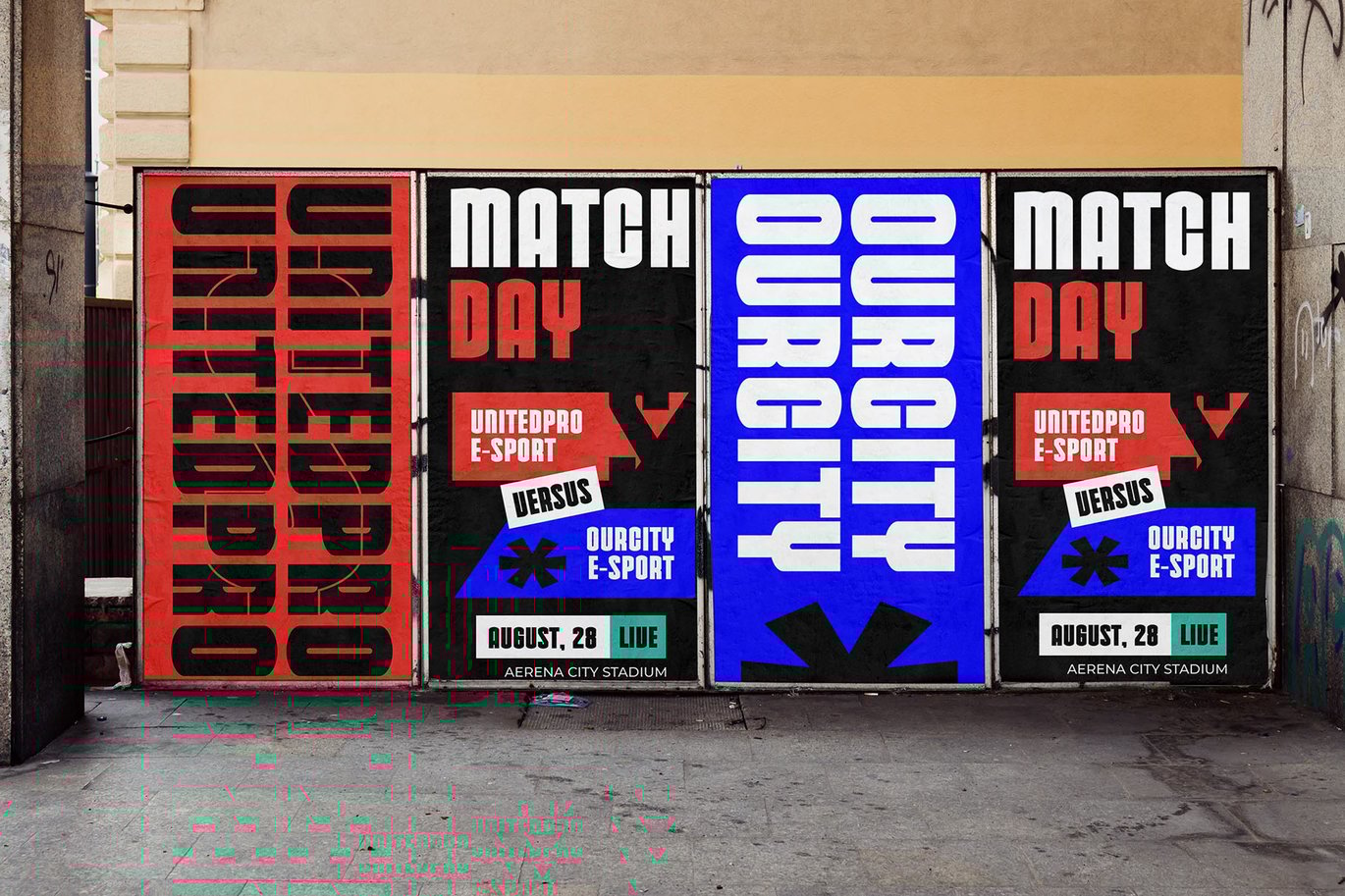
Black Logotype Sans Serif Font
Black Logotype is a striking sans serif font that combines clean geometric precision with a bold, contemporary aesthetic. Designed for versatility, this typeface is perfect for logos, branding, and typography that demand a strong and confident presence. Whether used for corporate identities, esports visuals, or high-end advertising, Black Logotype ensures a sleek and professional look across all creative projects.
With its well-structured letterforms and smooth spacing, Black Logotype offers excellent readability while maintaining a distinctive character. Its modern yet minimalistic design makes it ideal for both digital and print applications, seamlessly adapting to magazine layouts, product packaging, and website headers. Whether crafting impactful headlines or refined body text, this font delivers clarity and sophistication in every use.
Perfect for industries such as technology, fashion, gaming, and media, Black Logotype thrives in both corporate and creative settings. From Canva templates and brochures to invitations and advertisements, its adaptable nature ensures a polished and cohesive aesthetic. The bold yet refined design makes it a must-have for designers looking to establish a strong visual identity.
For those seeking a sans serif font that balances power with elegance, Black Logotype is the ultimate choice. Its contemporary design, functional appeal, and commanding presence make it a go-to typeface for anyone aiming to make a lasting impression with their typography.